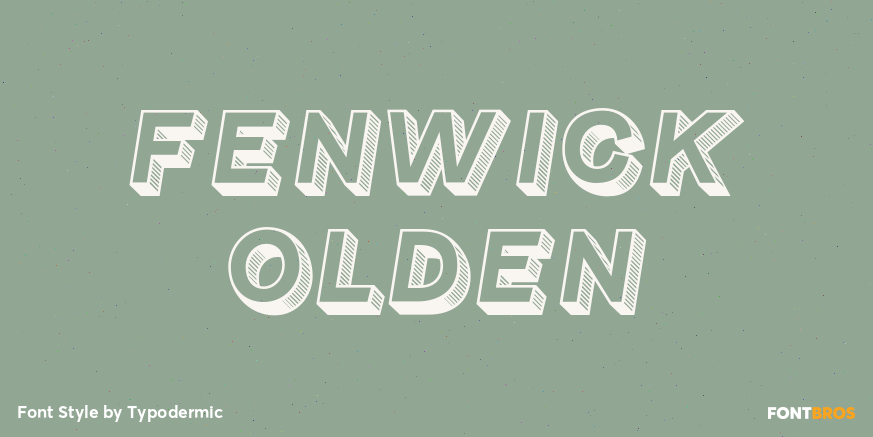
Fenwick Olden
Buy NowFenwick Olden pushes the family’s early twentieth-century commercial character into a more ornamental display style. Inline cuts, beveled construction, and shadowed details give the lettering the depth of an engraved title, painted sign, plaque, or presentation label while retaining Fenwick’s underlying geometric structure.
Use it for heritage-hotel identities, railway dining services, club anniversaries, theatre programs, commemorative packaging, premium food halls, watch collections, and event merchandise. Olden is intended for prominent names and short phrases; Fenwick’s quieter weights can handle the menus, schedules, captions, and supporting information around it.